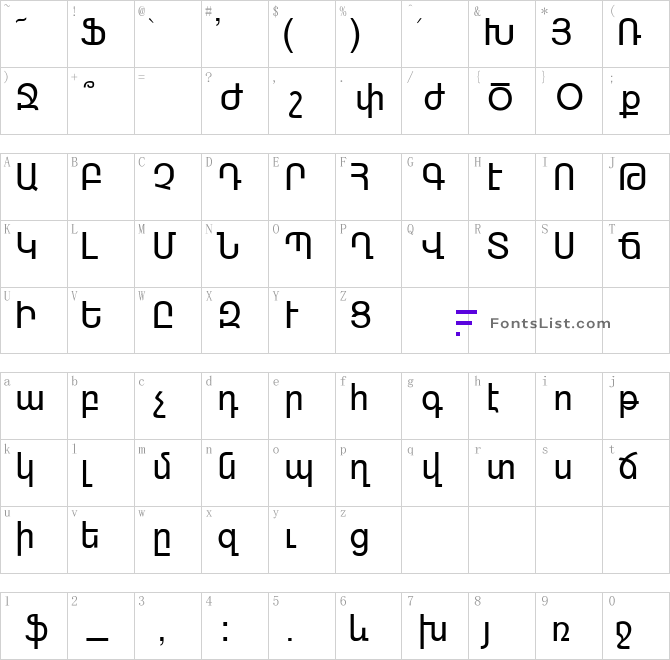
- Font Name:ARAGATZ
ARAGATZ.ttf is a very beautiful artistic font, ARAGATZ.ttf is widely used in the design and printing of various books and pictures,ARAGATZ.ttf has a strong visual impact,ARAGATZ.ttf is a commonly used font in newspapers, magazines and books, and is used in posters, e-commerce Poster design, store design, logo design, font design and other fields.ARAGATZ.